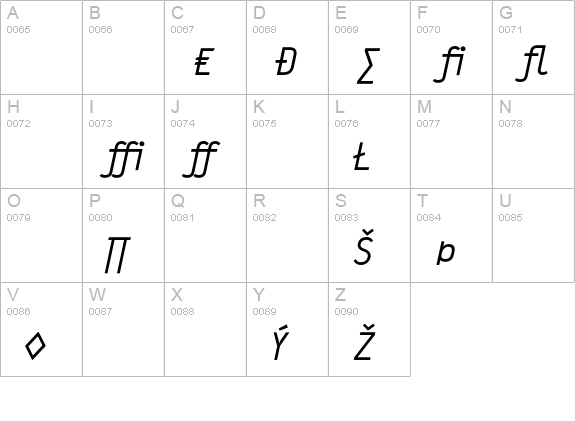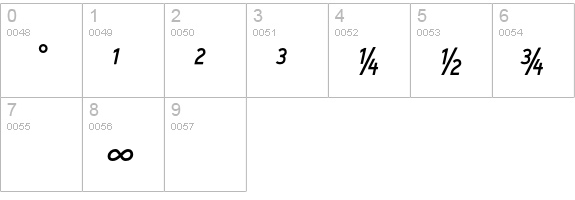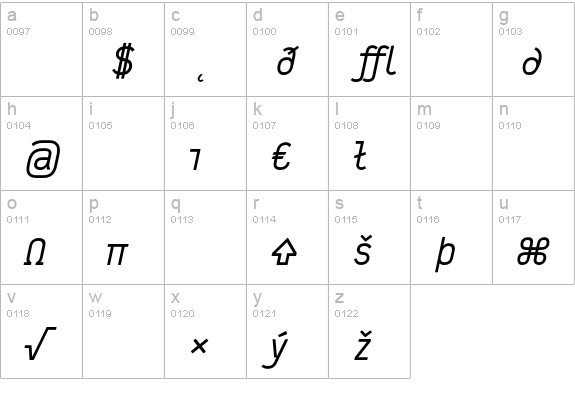
Typestar-NormalItalicExpert is a stunningly elegant font that exudes a sense of sophistication and style. With its sleek and slanted italic design, this font adds a touch of modernity to any project it graces. The expertly crafted letterforms display a perfect balance between classic elegance and contemporary flair. This font is perfect for those looking to add a touch of professionalism to their designs. It is particularly well-suited for use in branding materials, business cards, invitations, and any project that calls for a refined and polished appearance. The italicized nature of Typestar-NormalItalicExpert adds a sense of dynamism and movement to your text, making it visually captivating and engaging. One of the best things about Typestar-NormalItalicExpert is that it is free! Yes, you read that correctly. This stylish and versatile font is freely available to download at FontsMarket.com. With just a few clicks, you can have access to this exceptional font and start incorporating its beauty into your projects. Whether you are a professional designer or just someone looking to enhance their personal projects, Typestar-NormalItalicExpert is a font that will not disappoint. Its high-quality design and freely available status make it a must-have in any font library. So why wait? Download Typestar-NormalItalicExpert today and elevate your designs to new heights of elegance and sophistication.